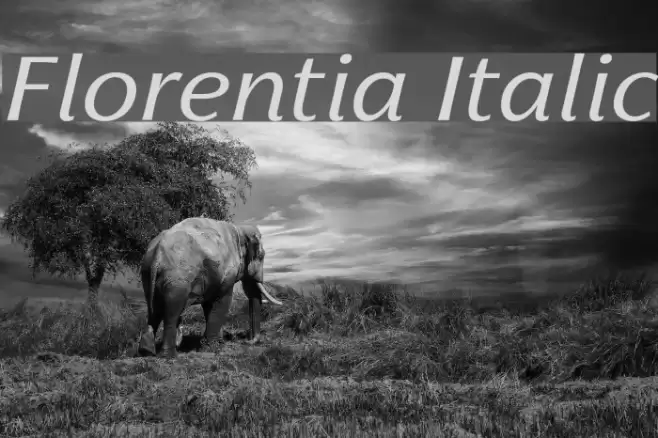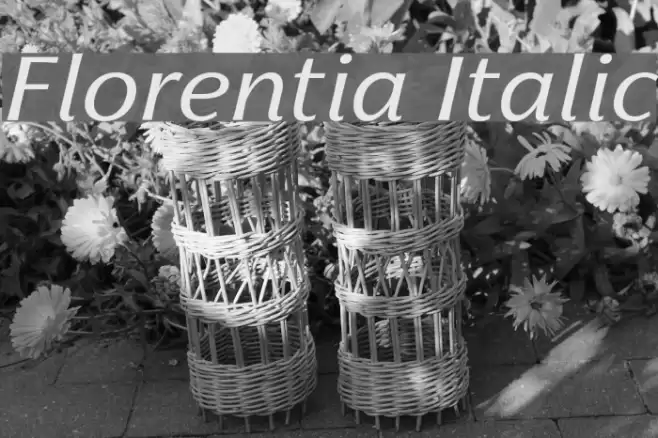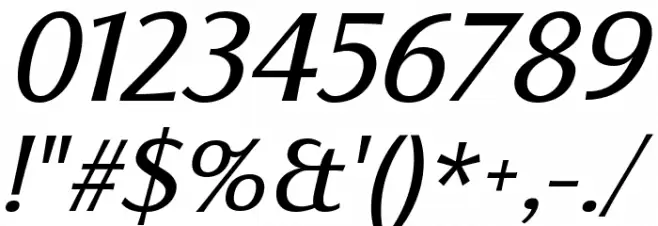
Florentia Italic Font
Florentia Italic Description
This font features an elegant and flowing italic style, characterized by its smooth curves and slightly slanted orientation. The uppercase letters are distinct with a refined touch, while the lowercase letters maintain a consistent fluidity, enhancing readability. The numerals are clear and well-proportioned, complementing the overall aesthetic. Special characters are designed with the same attention to detail, ensuring they blend seamlessly with the alphabetic characters. The font's design is both sophisticated and versatile, making it suitable for various applications.
An elegant and flowing italic font with smooth curves and a refined style from Uncategorized fonts.
- Proposed Projects: Ideal for projects such as wedding invitations, elegant branding, editorial design, and luxury product packaging.
- Overall Style: Classic